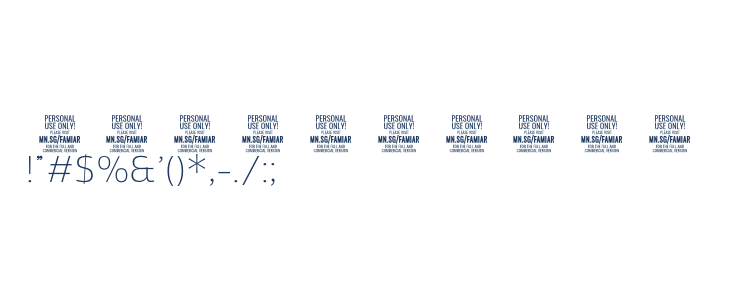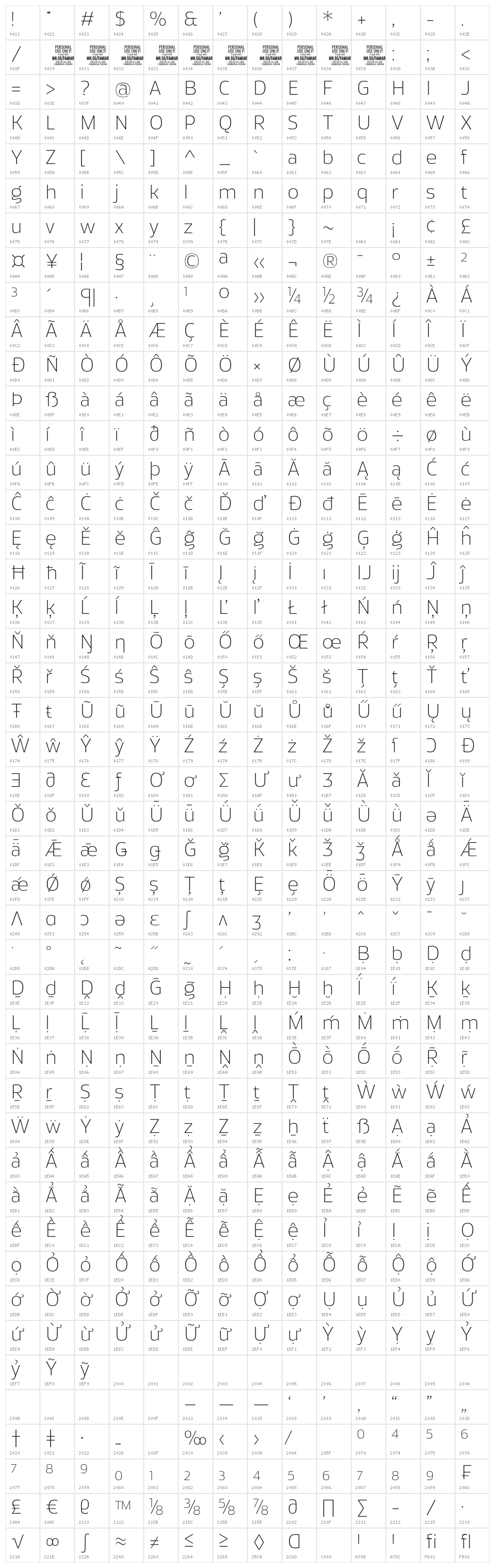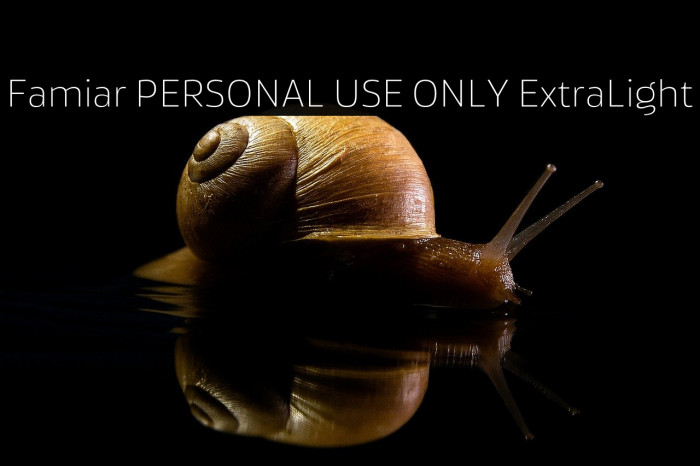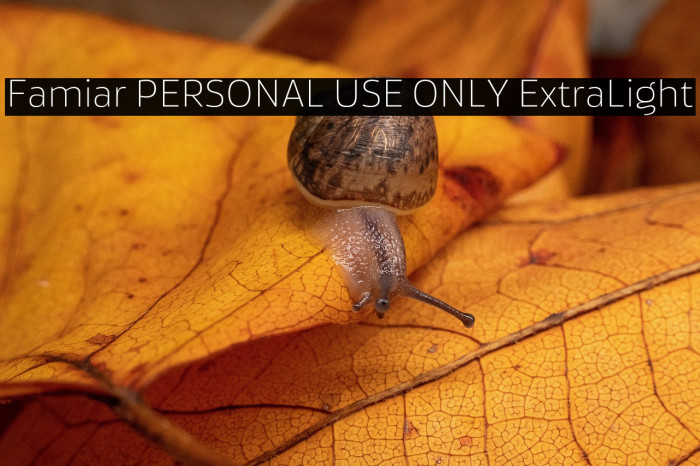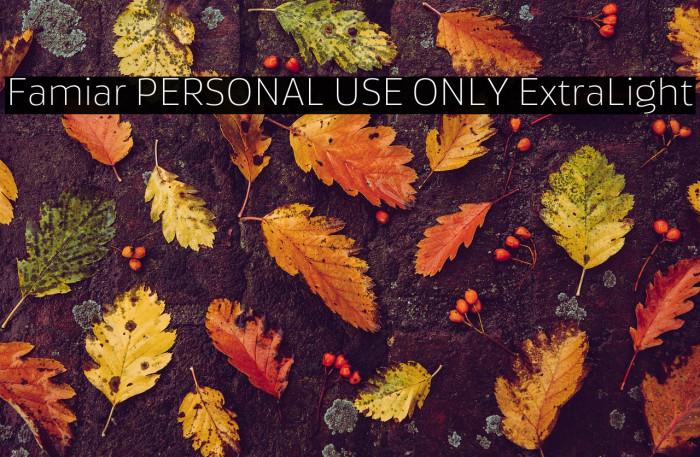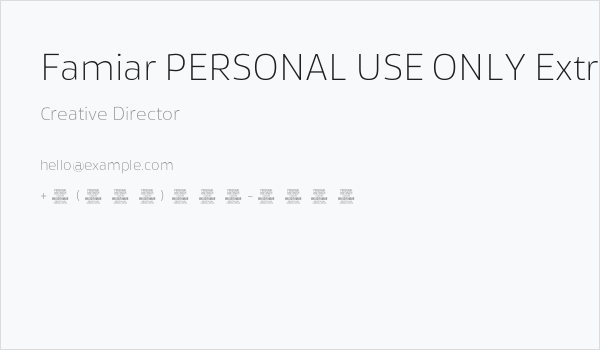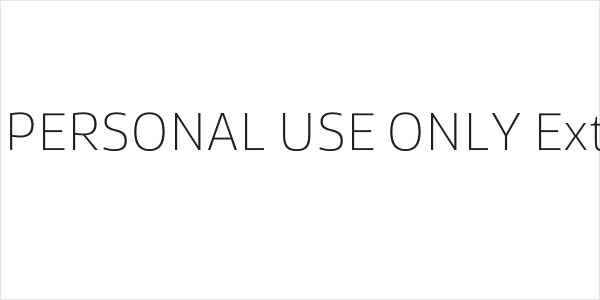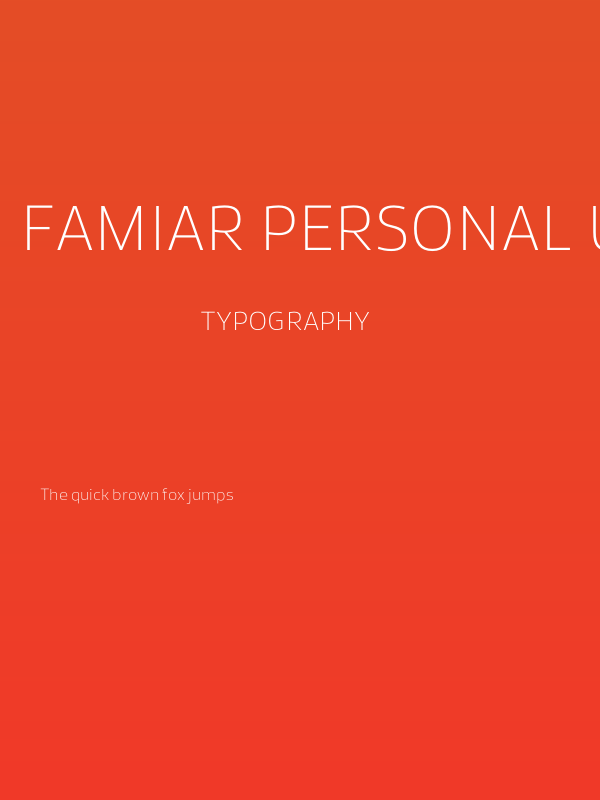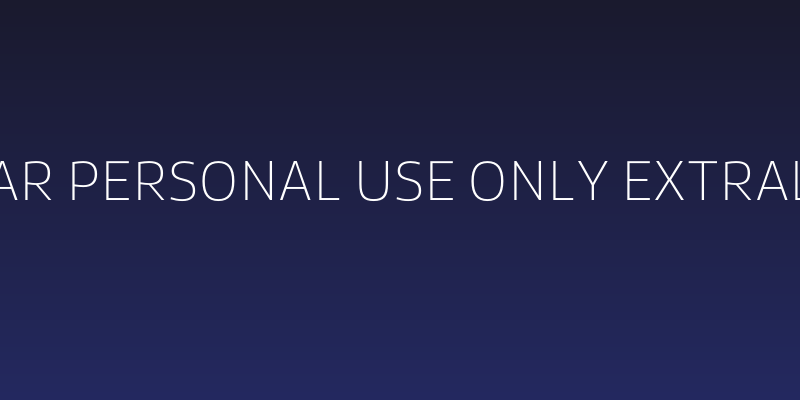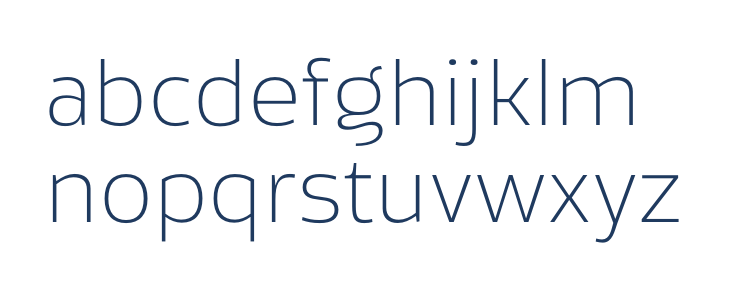
Famiar PERSONAL USE ONLY ExtraLight Font
Famiar PERSONAL USE ONLY ExtraLight Description
This font features a clean and minimalist design with a modern aesthetic. The characters are thin and elongated, giving it an elegant and sophisticated appearance. The uppercase and lowercase letters maintain a consistent style, with smooth curves and straight lines that create a harmonious look. The numerals and special characters are designed to complement the alphabet, ensuring a cohesive overall appearance. This font's simplicity and clarity make it highly readable, suitable for various design applications where a contemporary and sleek look is desired.